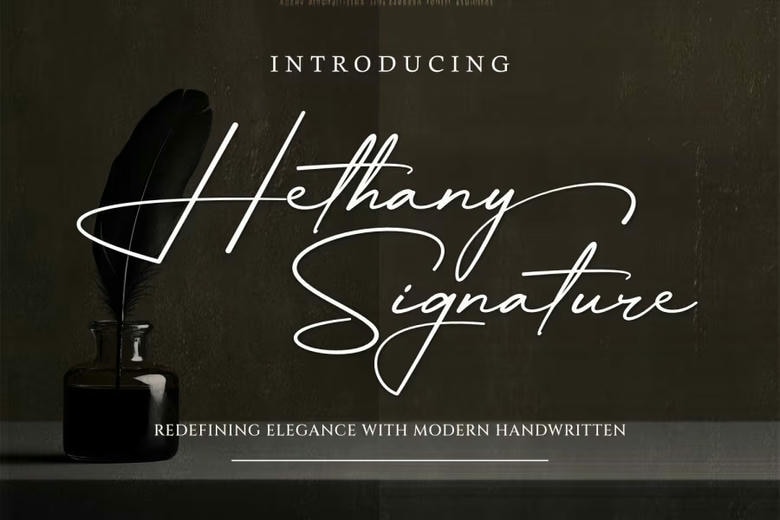
Hethany Signature Font
Hethany Signature Font is a modern script font that radiates elegance and sophistication. With its smooth, flowing strokes and stylish design, it captures the essence of a signature style that is both timeless and contemporary. Perfect for wedding invitations, luxury branding, logos, and personal projects, Hethany Signature brings a touch of class and individuality to every creation. Let this font transform your designs into a statement of beauty and refinement
Hethany Signature Script Font